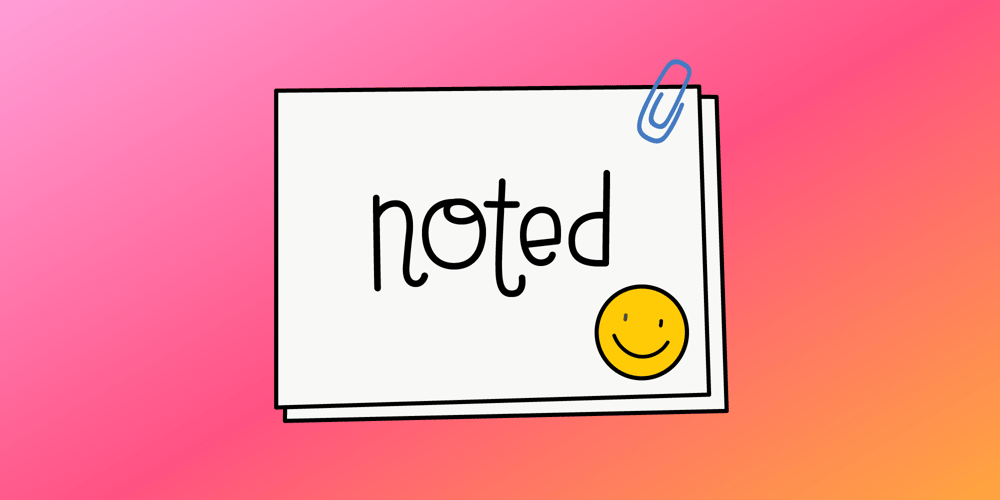
MTF Noted
MTF Noted font
MTF Noted Font Family was designed by Tina Raparanta and published by Miss Tiina Fonts. MTF Noted contains 1 styles and family package options. Noted is that perfect quirky font you’ll use again and again! Mix and match upper and lowercase letters to create your own unique hand-jotted look!